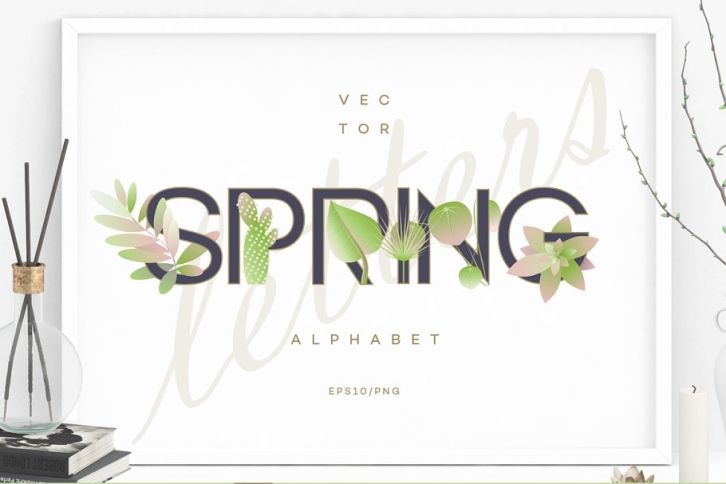
SPRING VECTOR ALPHABET LETTERS
A fresh unique spring alphabet that includes very fashionable plants like monstera deliciosa, cacti and succulents in green and pink color combinations.